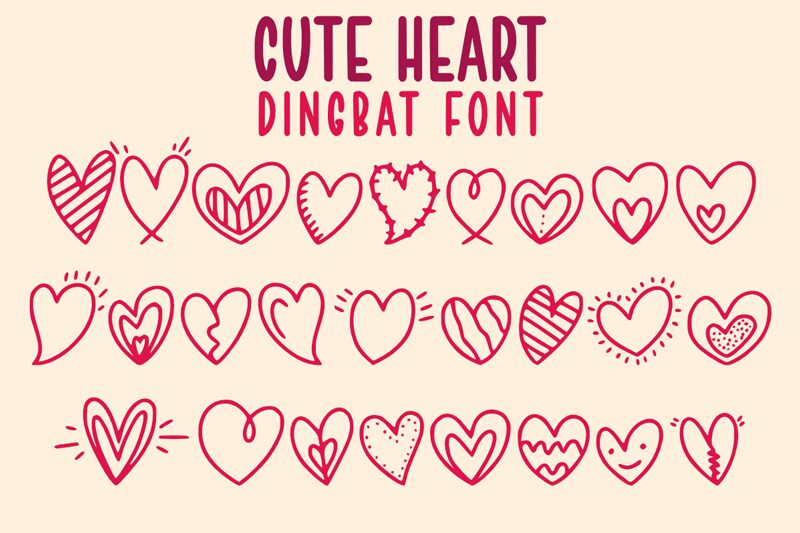
Cute Heart
Introducing Cute Heart by Letterge Studio - a fun and creative dingbat font composed of adorable hearts. Perfect for crafting projects, Valentine's Day cards, or adding a touch of whimsy to any design.